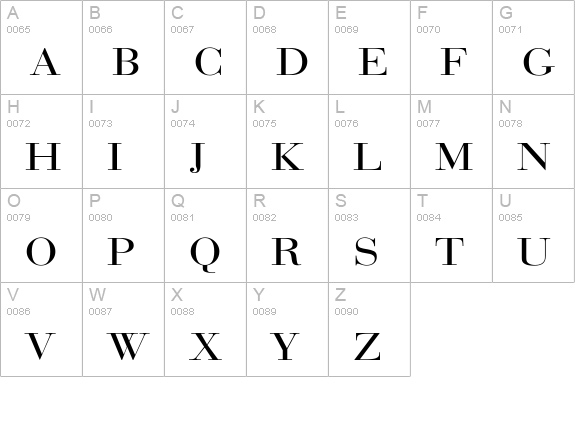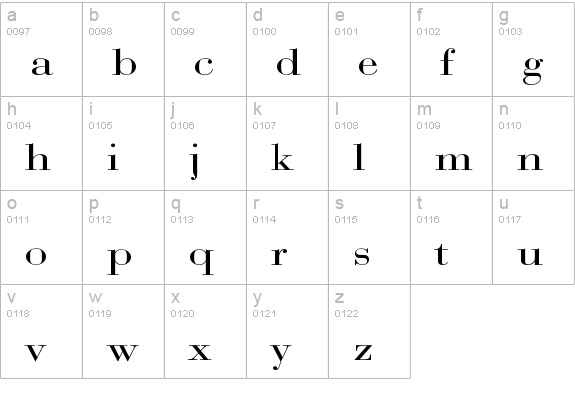
RothniExt-Norma Font Details
RothniExt-Norma font is a stunning display typeface that exudes elegance and sophistication. Its sleek lines and unique letterforms make it perfect for adding a touch of class to any design project. Whether you're creating a logo, poster, or branding materials, RothniExt-Norma will make your text stand out with its modern yet timeless appeal. The best part is that RothniExt-Norma font is completely free to download. You can access this beautiful typeface at FontsMarket.com with just a few clicks. Don't miss the opportunity to enhance your designs with this exquisite font that will surely leave a lasting impression on your audience. Download RothniExt-Norma today and elevate your creative projects to new heights!